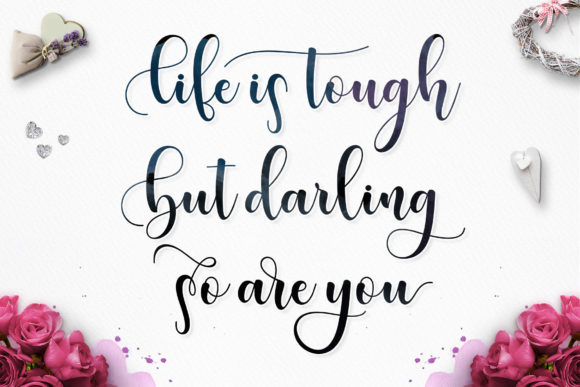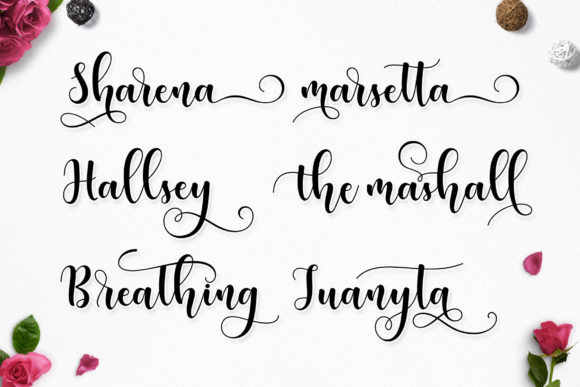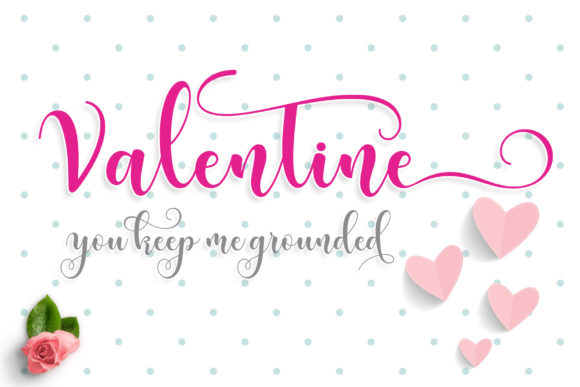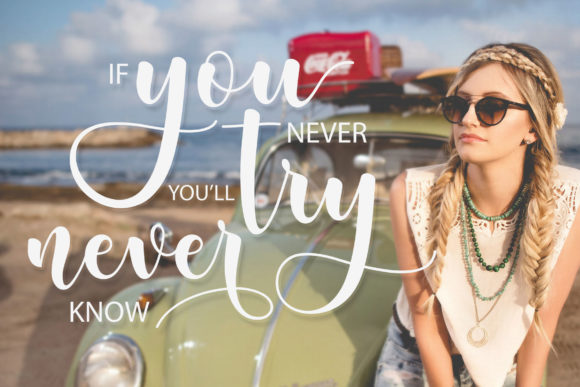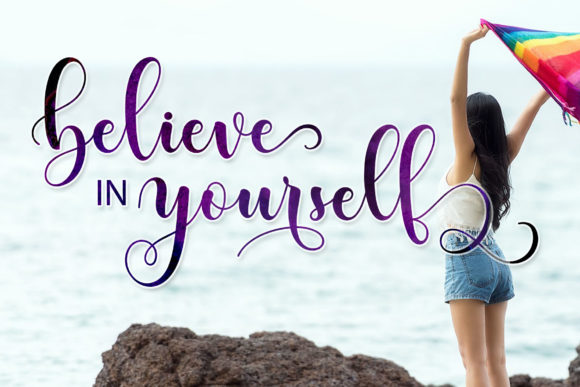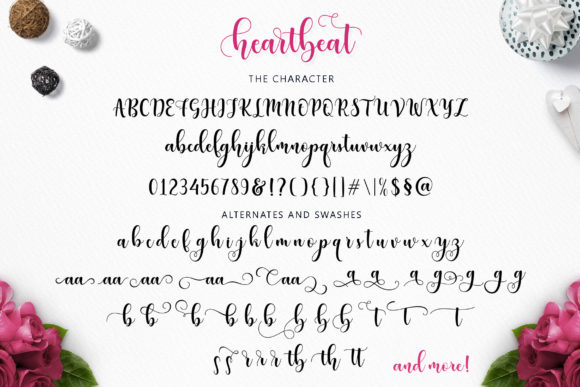
Heartbeat Font: Elevate Your Designs with Elegance and Sophistication
Are you tired of using the same old fonts in your designs? Look no further than the Heartbeat Font, a bold and elegant handwritten font that’s sure to become your new favorite. With its masterful design, classy calligraphic influences, and contemporary feel, Heartbeat Font is the perfect choice for designers and crafters looking to take their projects to the next level.
A Font that’s Truly One-of-a-Kind
Heartbeat Font is a unique and stunning font that’s been carefully crafted to provide a fresh and modern take on traditional calligraphy. Its elegant and sophisticated design makes it perfect for a wide range of projects, from wedding invitations and branding materials to packaging and advertising. Whether you’re a professional designer or a crafty DIY enthusiast, Heartbeat Font is sure to impress.
Key Features of Heartbeat Font
- Bold and Elegant Design: Heartbeat Font boasts a bold and elegant design that’s sure to make a statement in any project.
- Handwritten Style: With its handwritten style, Heartbeat Font adds a personal and touch to any design.
- Classy Calligraphic Influences: Heartbeat Font maintains its classy calligraphic influences while feeling contemporary and fresh.
Why Choose Heartbeat Font?
So why choose Heartbeat Font over other fonts on the market? For starters, its unique and elegant design sets it apart from more traditional fonts. Additionally, its versatility makes it perfect for a wide range of projects and applications. Whether you’re looking to create a stunning wedding invitation or a bold brand identity, Heartbeat Font is the perfect choice.
Tips and Tricks for Getting the Most Out of Heartbeat Font
In conclusion, Heartbeat Font is a bold and elegant handwritten font that’s sure to become a true favorite among designers and crafters. With its masterful design, classy calligraphic influences, and contemporary feel, it’s the perfect choice for anyone looking to elevate their designs to the next level. So why wait? Download Heartbeat Font today and start creating stunning designs that will leave a lasting impression.